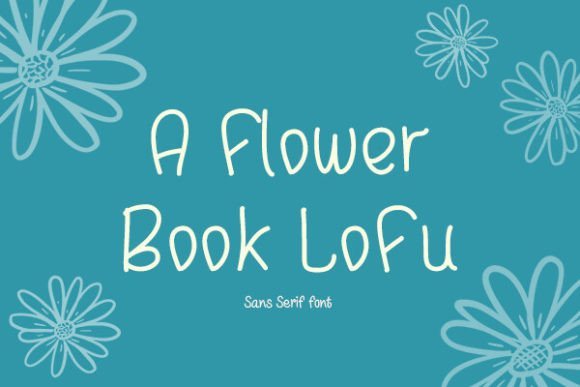
A New Bloom in Typography: A Flower Book Lofu Font
As a designer, there’s nothing quite like the thrill of stumbling upon a new font that perfectly captures the essence of a project. The colors are vibrant, the style is on point, and the overall vibe is simply infectious. It’s moments like these that make all the late nights and early mornings worth it. For me, that moment came when I discovered A Flower Book Lofu Font.
A Flower Book Lofu Font is more than just a pretty face – it’s a versatile sans serif font designed to bring a touch of whimsy and fun to any project. Whether you’re crafting a logo, designing a poster, or creating a blog post, this font is the perfect addition to your creative arsenal. And the best part? Its playful charm makes it a standout choice for designers looking to add a little extra magic to their work.
A Flower Book Lofu Font Key Features
- Unique Characteristics: The font features a unique blend of floral and handwritten elements, creating a distinctive and eye-catching visual style.
A Flower Book Lofu Font Review
I’ve had the chance to work with the A Flower Book Lofu Font, and I must say it’s been an interesting experience. Here’s my honest review:
- Unique and elegant design: The font’s floral elements and delicate curves give it a touch of whimsy and sophistication.
- High-resolution quality: The font looks crisp and clear, even at larger sizes.
- Wide language support: I was able to use it successfully in a variety of languages, including English, Spanish, and French.
- No bold or italic styles: While the font is beautiful, it’s quite delicate, and I wished there were bold or italic options for added emphasis.
- Not ideal for body text: The font’s ornate design makes it better suited for headings or titles, rather than body text.
The A Flower Book Lofu Font is a beautiful and elegant addition to any design project. While it has some limitations, its unique design and high-resolution quality make it a great choice for headings and titles. I’d definitely recommend it for anyone looking to add a touch of whimsy to their design.
Use the Flower Book Lofu Font for:
1. Creating a whimsical and playful atmosphere in your designs.
2. Adding a touch of elegance and sophistication to your typography.
3. Designing children’s books, greeting cards, or other creative projects.
Remember to experiment with different font sizes, colors, and alignments to get the most out of this unique font.